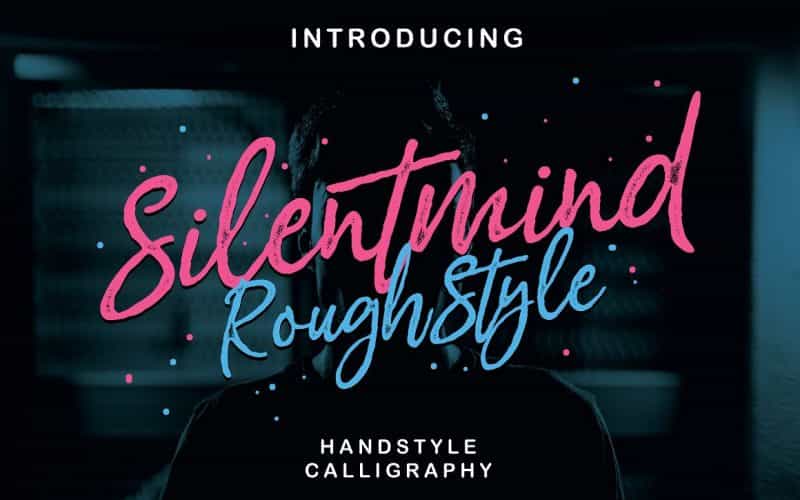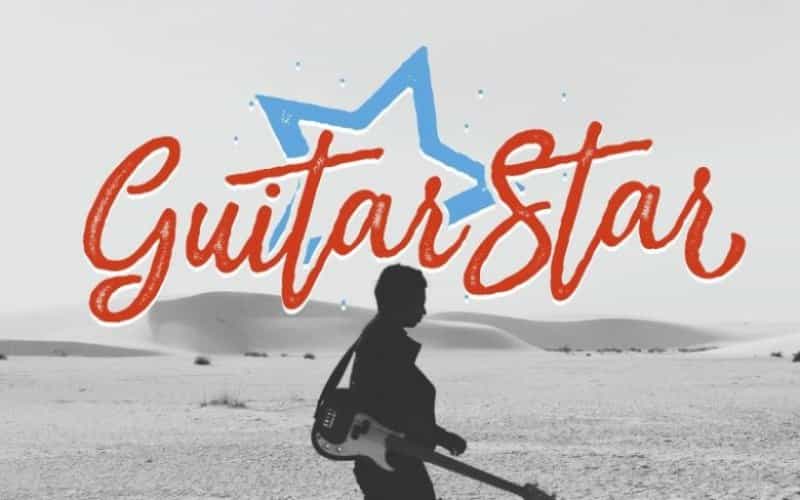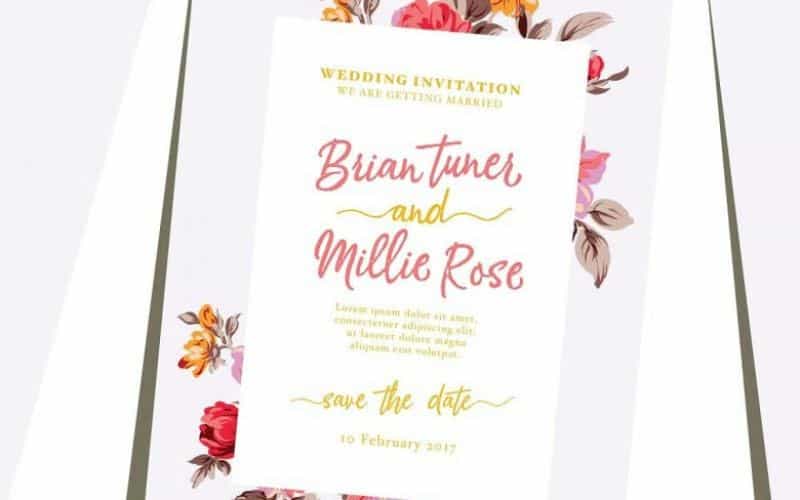
Silentmind Rough Typeface Modern Calligraphy Script Typeface, it was created with the help of a multi-tool pen brush, this font has varied features up and down mentioning this font is perfect for application: can be used for logoing loading, name tag, handwritten quotes, packaging packaging, goods product, social media, and greeting cards and more.